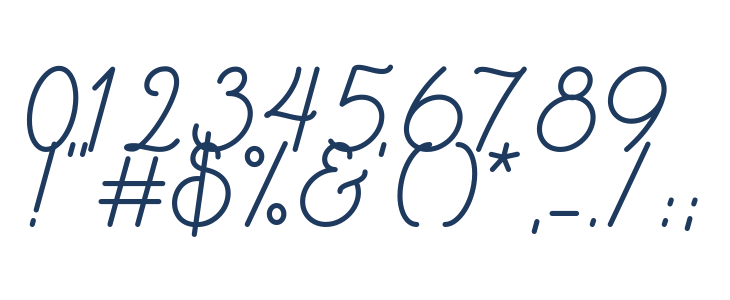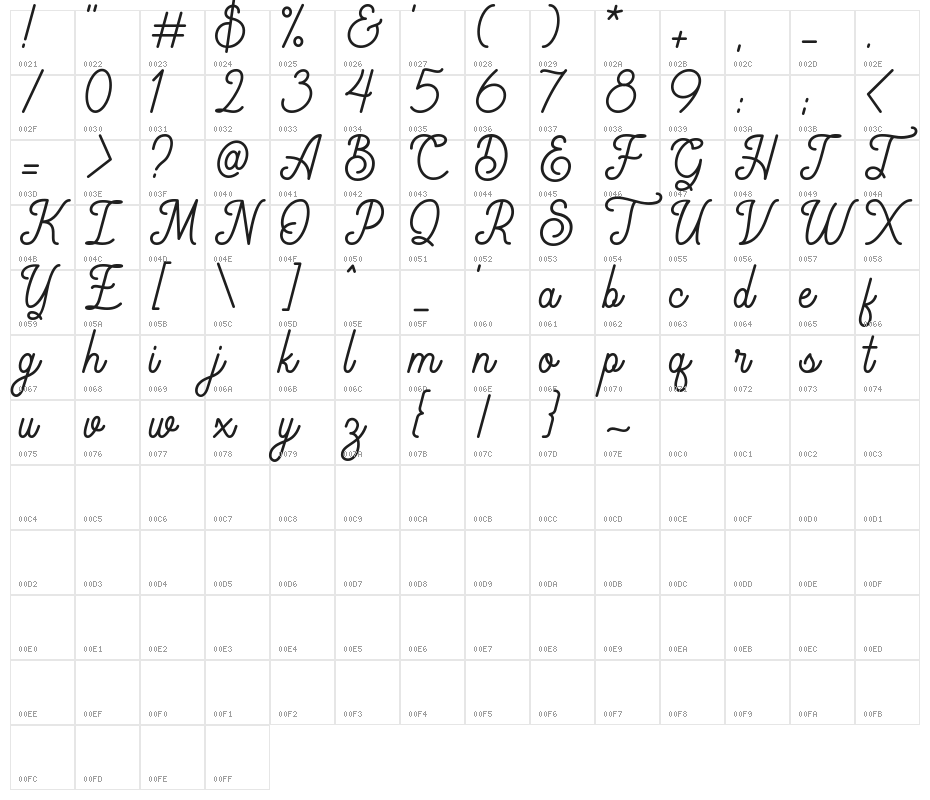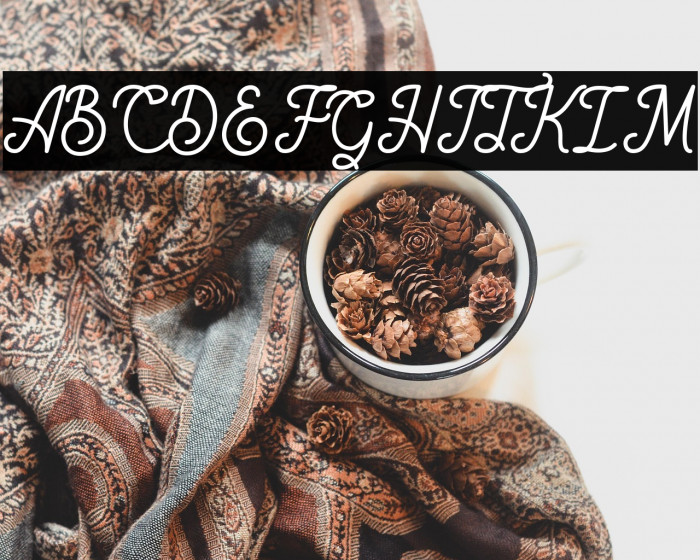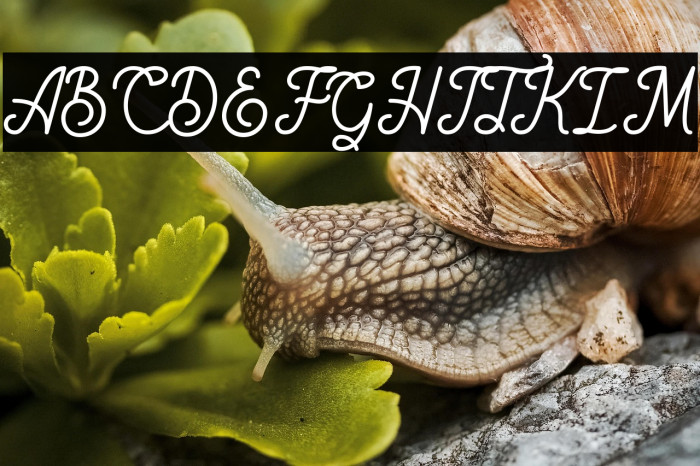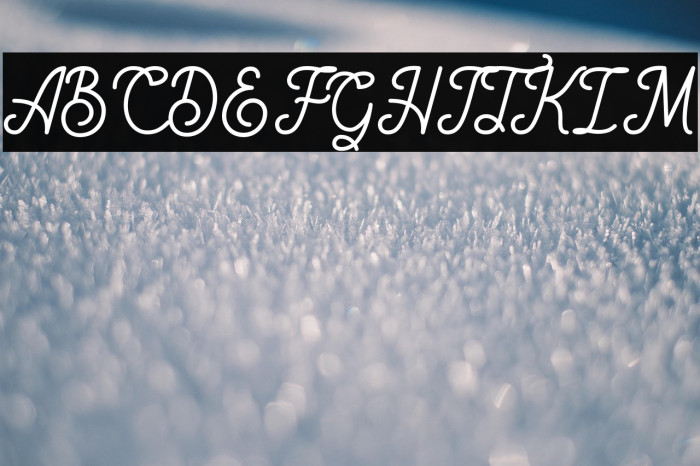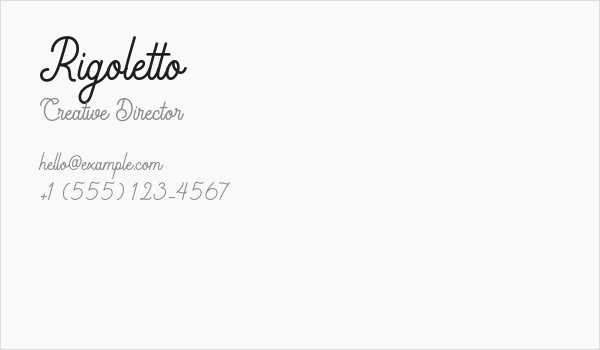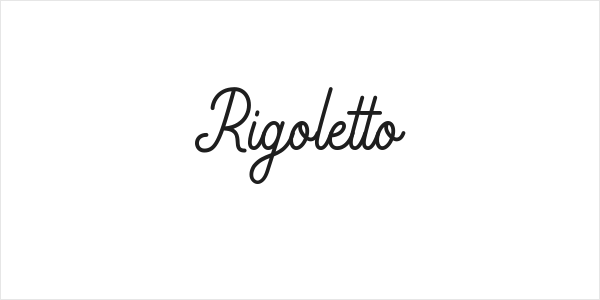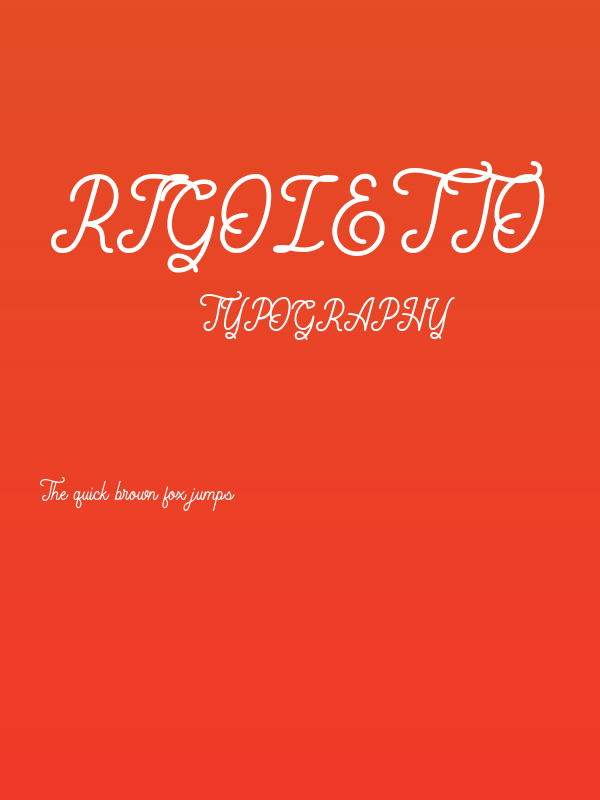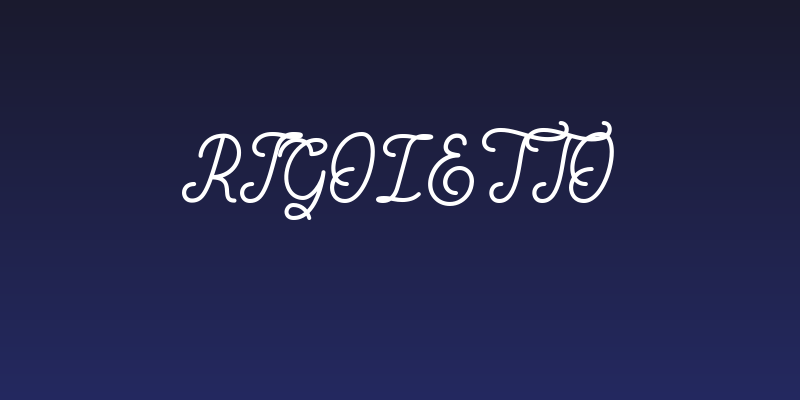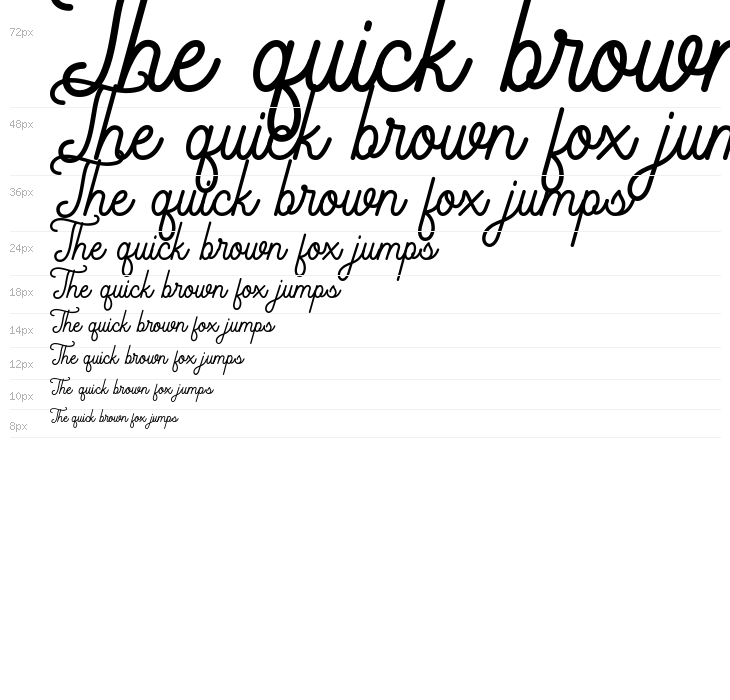
Rigoletto Font
Rigoletto Description
This elegant script font features a flowing, cursive style with smooth, connected strokes that mimic the fluidity of handwriting. The uppercase letters are characterized by their graceful loops and swirls, while the lowercase letters maintain a consistent, rounded form. The numerals and special characters are designed to complement the overall aesthetic, with a harmonious balance between curves and straight lines. This font exudes a sense of sophistication and charm, making it ideal for projects that require a personal touch.
| Proposed Projects | Ideal for wedding invitations, greeting cards, branding, and elegant packaging designs. |